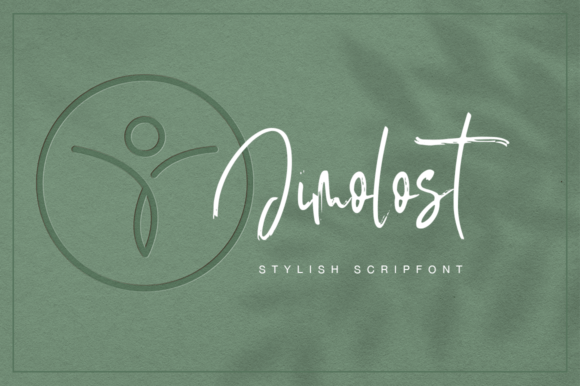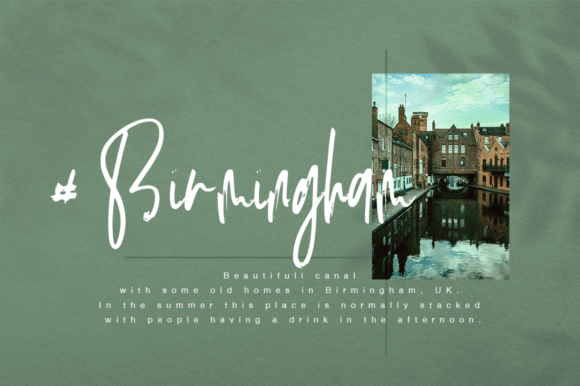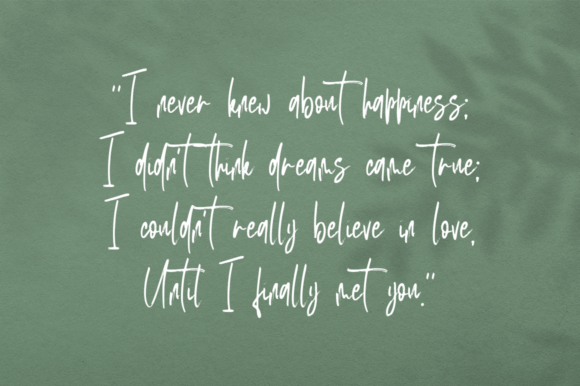
About Jimolost Font
Jimolost is a fresh and beautifully crafted handmade calligraphy font, designed to bring a touch of elegance to a variety of design projects. Its versatility makes it well-suited for greeting cards, branding materials, business cards, quotes, posters, and more. Whether you’re working on wedding postcards or creating unique designs for your logo, blog, stationery, marketing materials, or magazines, Jimolost adds a distinctive and refined flair to your creations.
The calligraphic nature of Jimolost lends an air of sophistication to your designs. Its fluid strokes and handcrafted details create a sense of elegance, making it perfect for projects where a touch of personalized charm is desired.
Jimolost is particularly well-suited for greeting cards, infusing warmth and style into your messages. Its versatility extends to branding materials, where it can contribute to the creation of a unique and memorable brand identity. In the realm of business cards, quotes, and posters, Jimolost stands out with its graceful script, adding a touch of timeless beauty.
For wedding postcards, Jimolost becomes a perfect choice, imparting a romantic and handwritten feel to the designs. The font’s ability to evoke emotions makes it a valuable asset for creating memorable and meaningful visual experiences.
Whether you’re working on a logo, blog, stationery, marketing collateral, or magazine layouts, Jimolost seamlessly integrates into various design contexts. Its versatility ensures that it can adapt to different styles and themes, making it a reliable and elegant choice for a wide range of creative projects.
In summary, Jimolost is not just a font; it’s a design tool that brings a fresh and handmade quality to your projects. Whether for personal or professional use, this calligraphy font adds a touch of sophistication, making your designs stand out with grace and style.